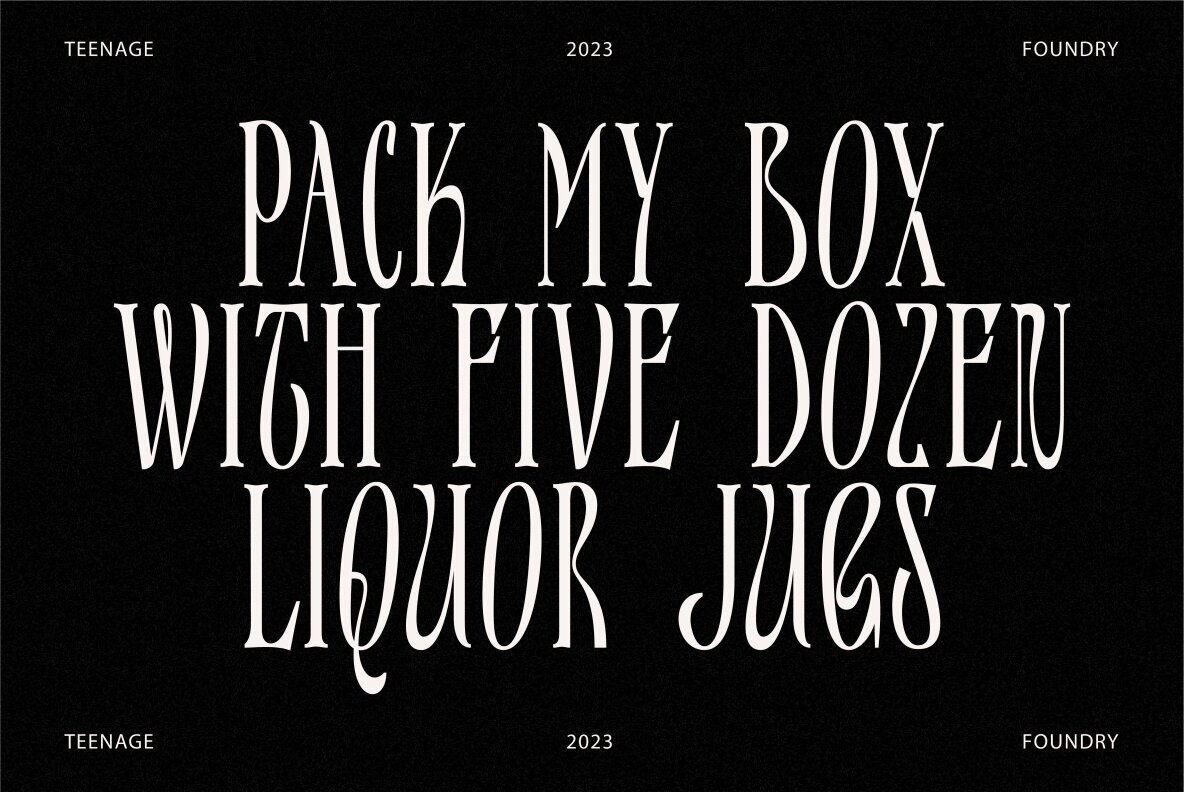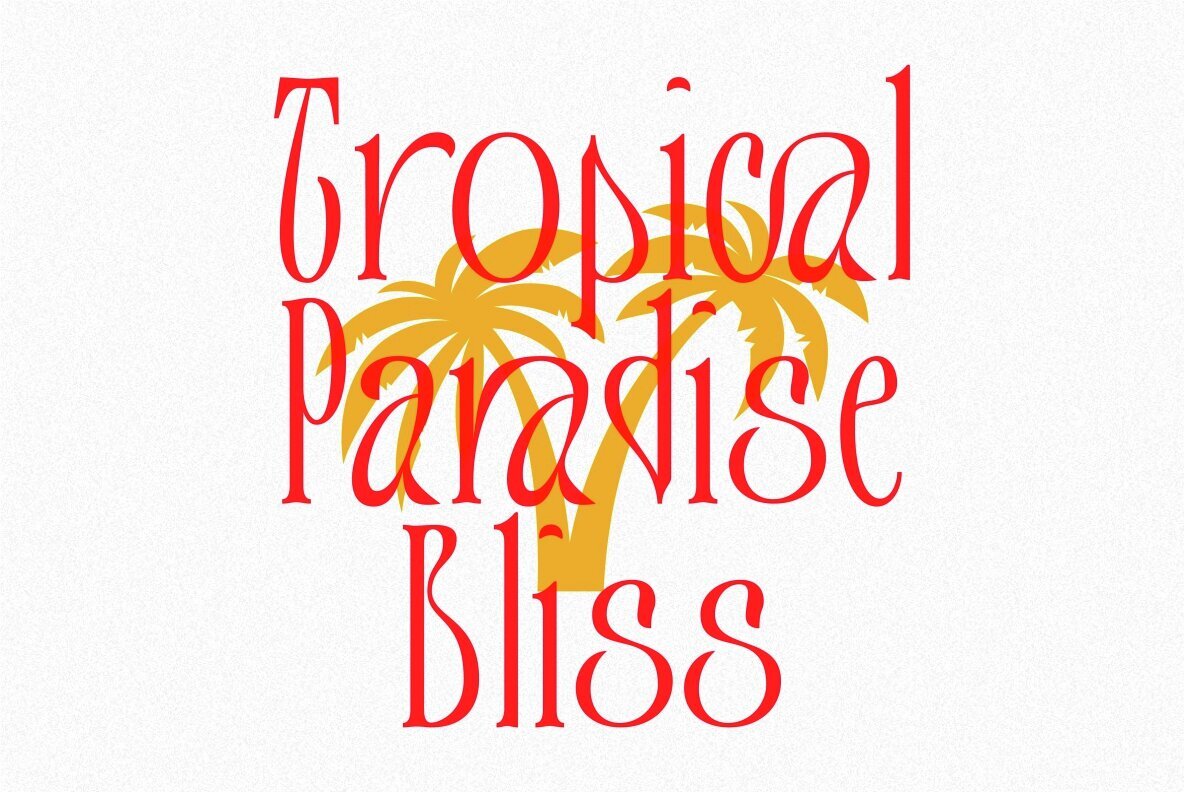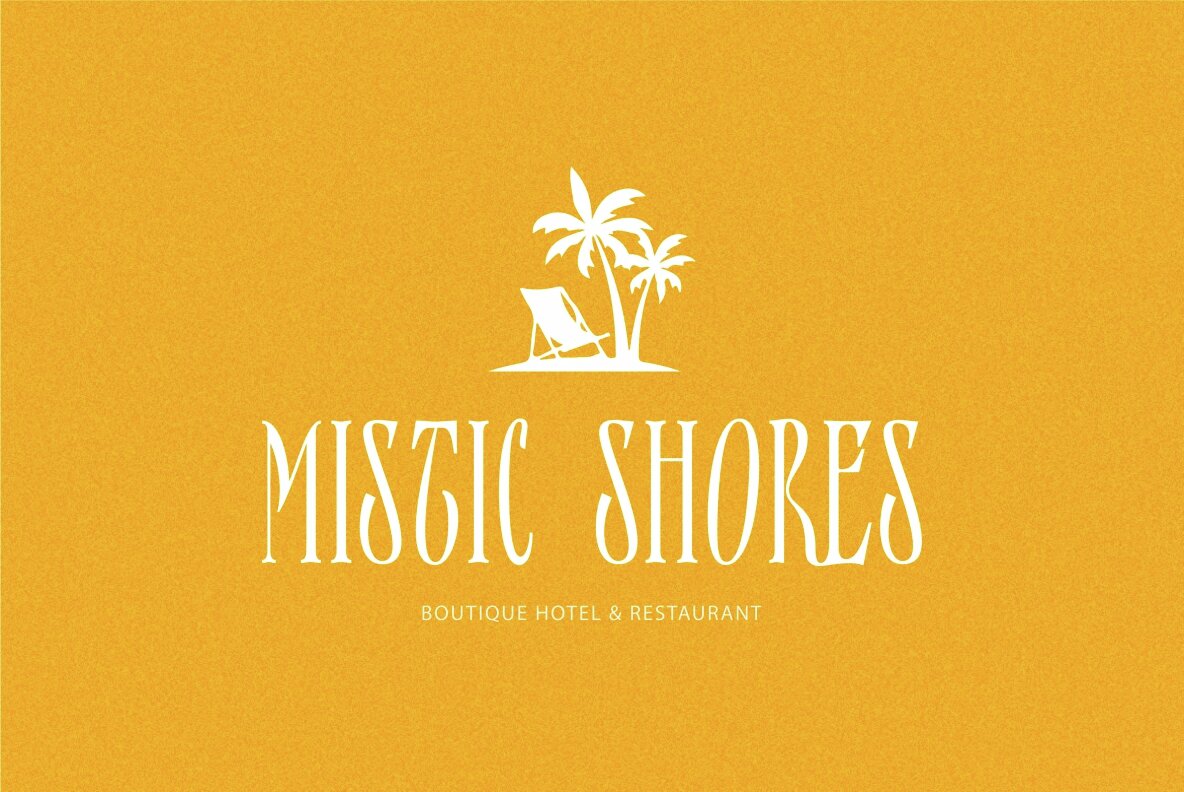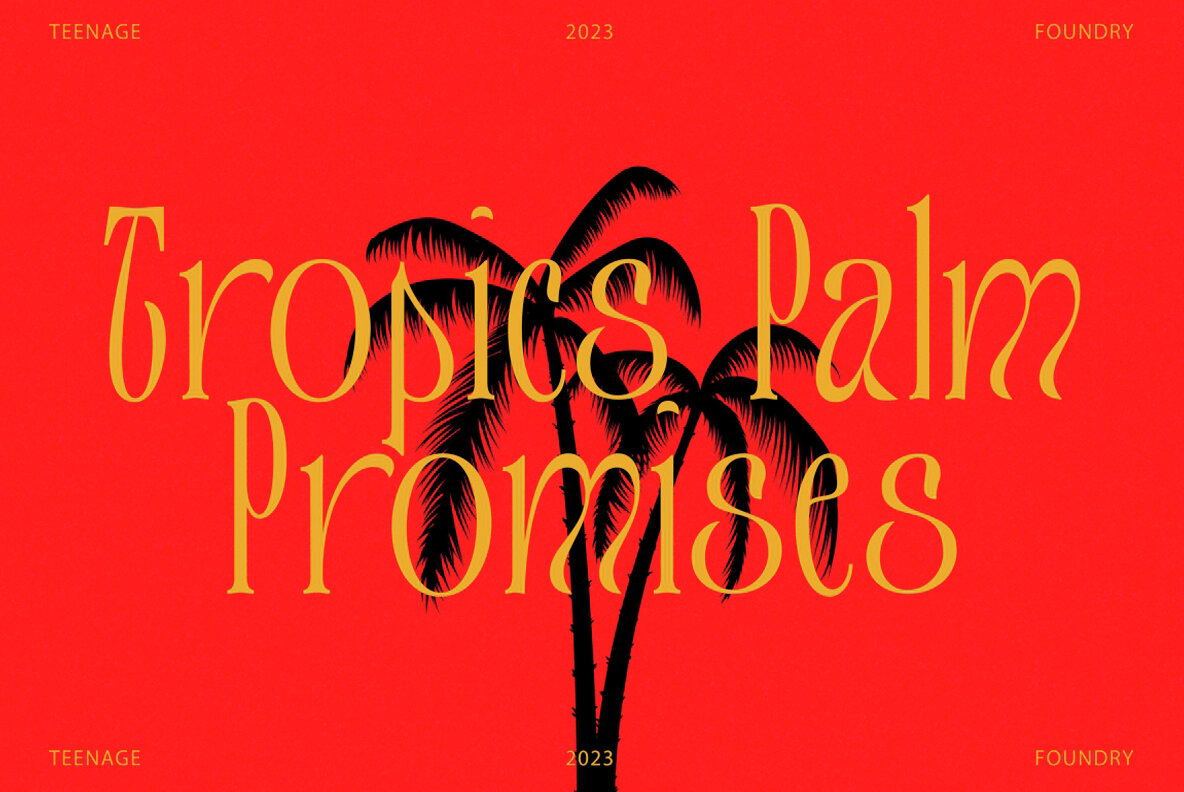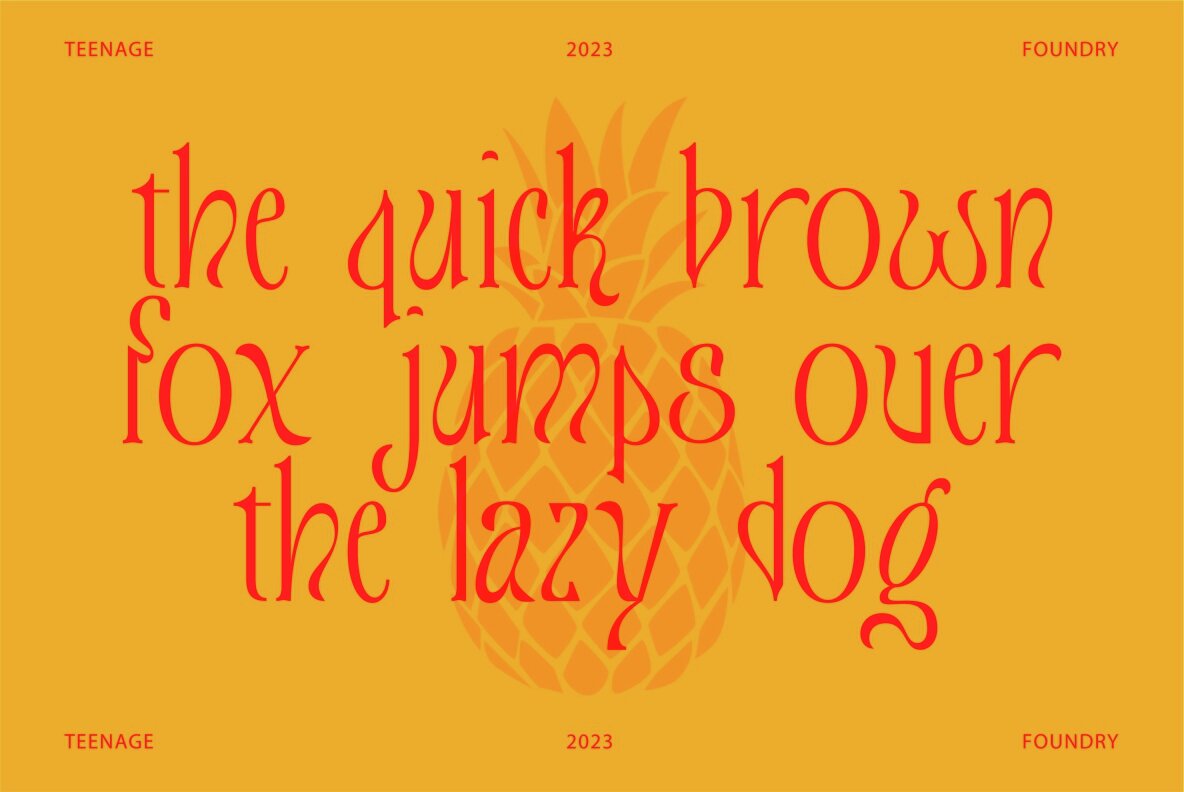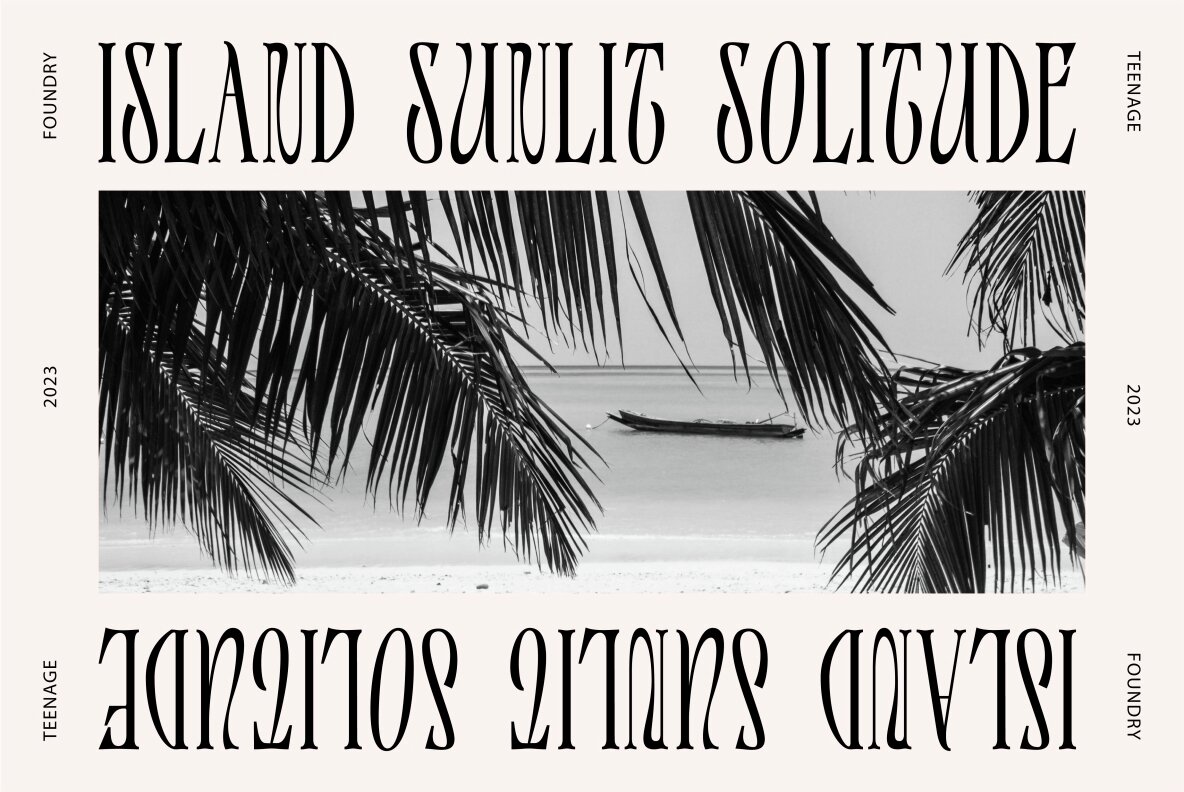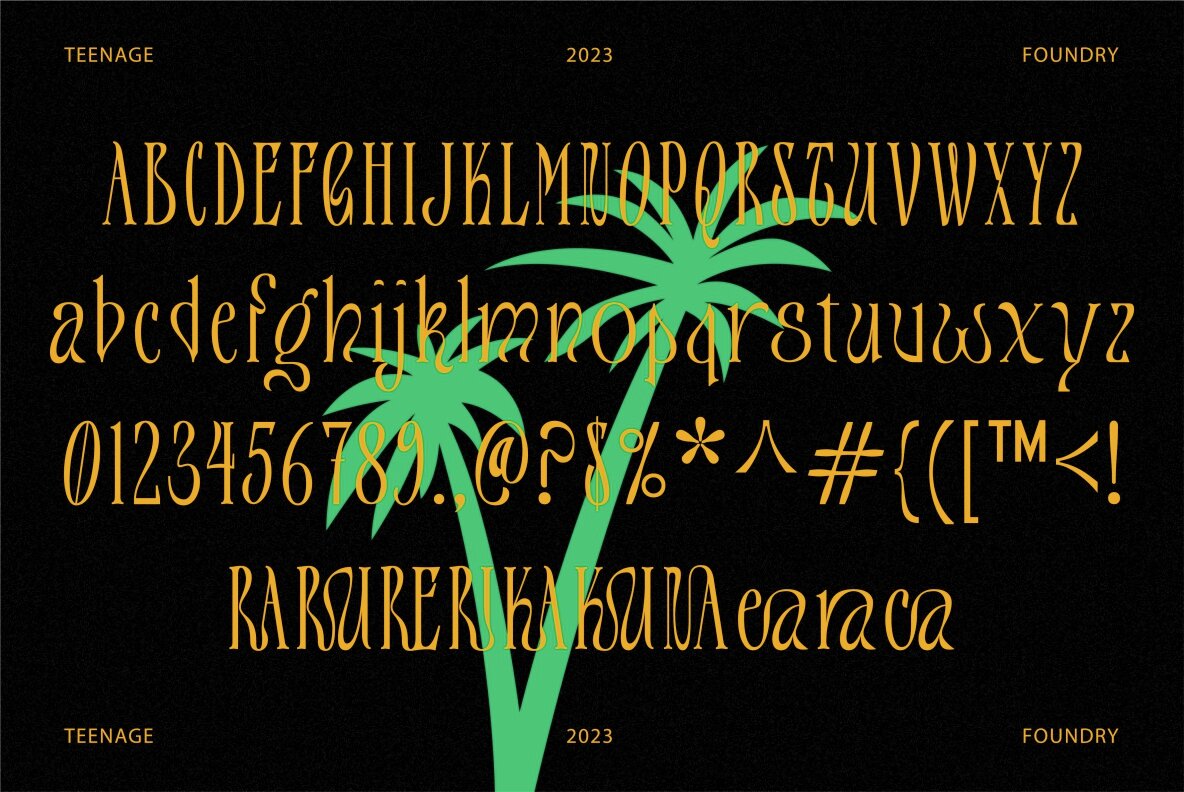
Teenage Tropics Font
Teenage Tropics
The Teenage Tropics Typeface, designed with ingenuity by Teenage Foundry, is more than a font display. It's an arresting blend of retro nostalgia and tropical whimsy encapsulated in each character. Unashamedly bold and playful, this vintage typeface whispers enticing tales of the 50s and 60s, transporting you to an era where design held a distinctive signature of true creativity and innovation. Perfect for graphic designers and marketing firms aiming to infuse their creations with an elegant antique veneer, the Teenage Tropics Typeface is more than just a typography tool. It’s a paintbrush that vividly brings to life the mood of a bygone era. Whether you're fashioning brand identities, ad campaigns, wallpapers, or merely spicing up social media posts, this captivating typeface is your key to creating visually stunning and memorable designs. Features of the Teenage Tropics TypefaceExperience the Timeless Charm of Teenage Tropics Typeface
Teenage Foundry brings playful irreverence and bold character to contemporary type design. Known for high-impact display fonts, their work often leans into retro, pop, and offbeat aesthetics—ideal for projects that demand standout personality. From groovy curves to heavy geometric forms, their catalog spans a...